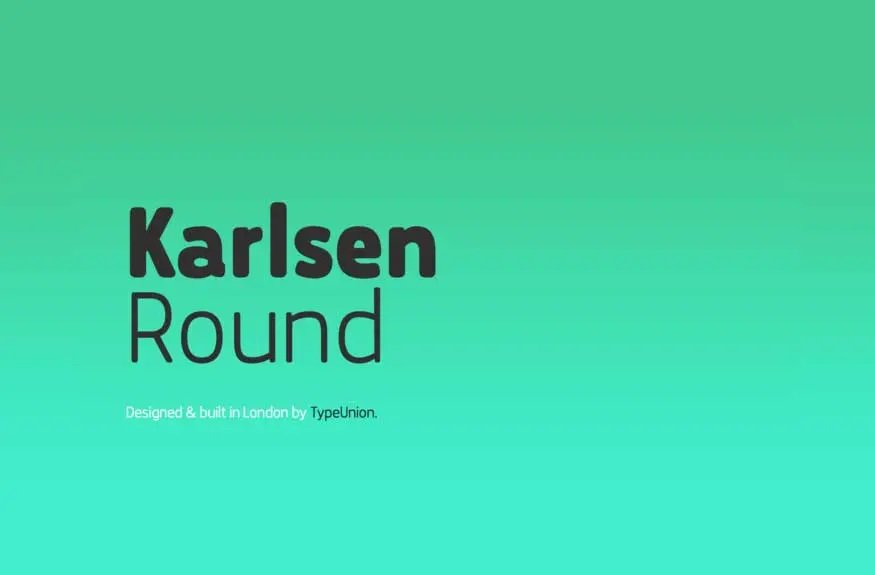
Karlsen Round Font Family
Designed and built in London by TypeUnion, Karlsen Round is a structured, functional typeface which embraces harmony, flow and versatility, but with a cheeky twist.
The Karlsen Round Family is made up of 14 styles, which range from a delicate thin, all the way through to a substantial extra-bold and each carry a versatility for multiple applications and uses.
Karlsen Round provides extensive language support to provide a flexible, substantial user experience.